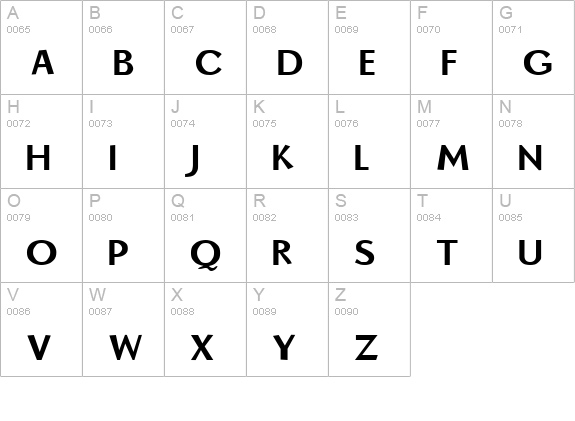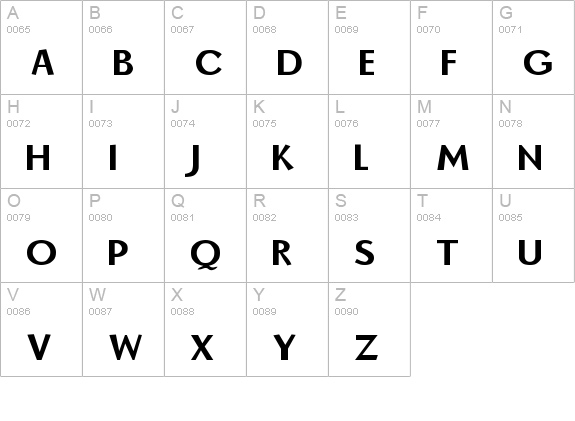
Borzoi Bold is a strong, high-contrast variant in the Borzoi typeface family \xE2\x80\x94 well suited to headlines, attention-grabbing titles, and strong calls-to-action.
Borzoi Bold is a striking and elegant font that exudes sophistication and charm. Its sleek lines and elongated letterforms make it perfect for creating eye-catching headlines and titles. The bold weight of this font adds a strong presence to any design, while still maintaining a sense of gracefulness. What sets Borzoi Bold apart is not only its unique style, but also the fact that it is available for free download at FontsMarket.com. This means you can easily incorporate this beautiful font into your projects without any cost involved. Whether you're working on a branding project, a poster design, or any other creative endeavor, Borzoi Bold is sure to make a statement and elevate your work to the next level. Embrace the beauty and versatility of Borzoi Bold today by downloading it for free at FontsMarket.com.